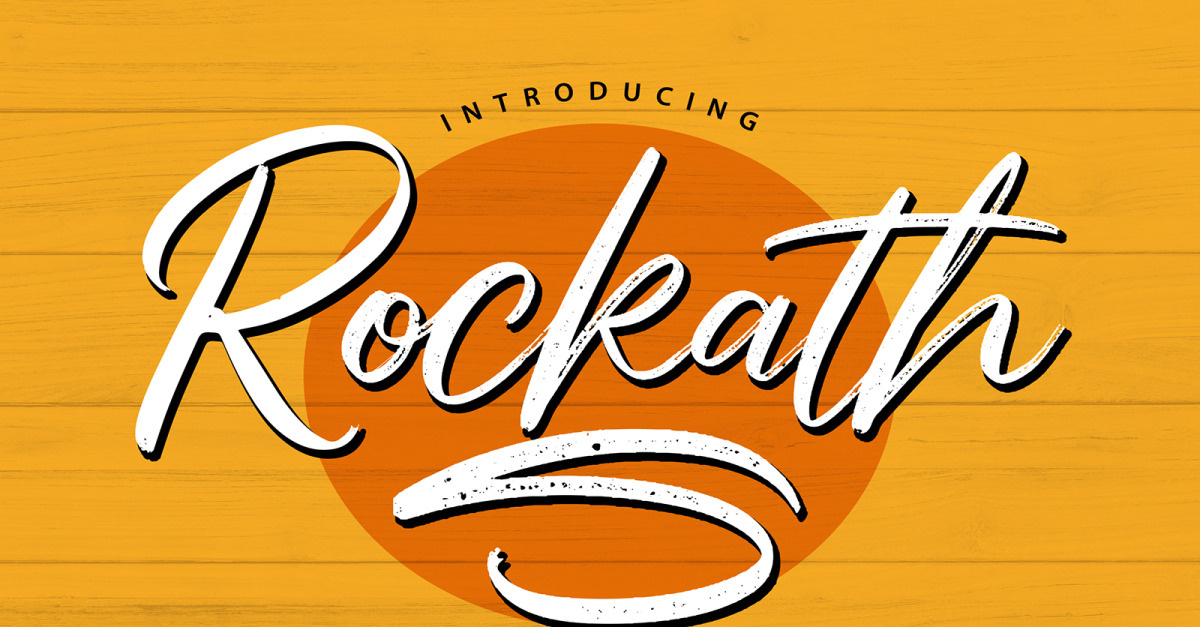
Rockaths | Handwriting Cursive Font
**Rockaths | Handwriting Script Font** with a calligraphy style, So beautiful on invitation like greeting cards, branding materials, business cards, quotes, posters, and more!